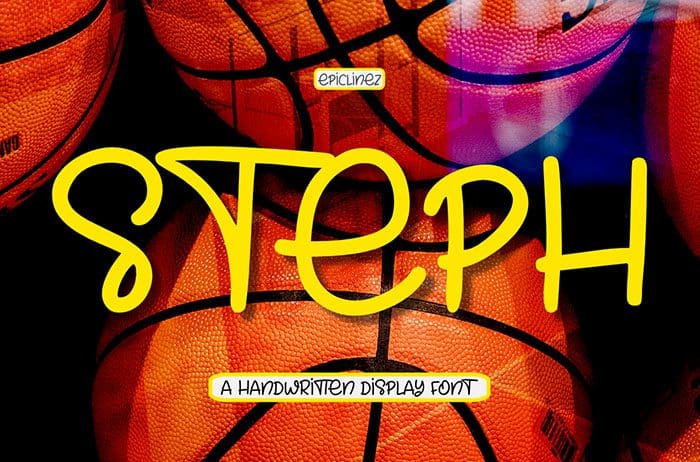
Steph handwritten display font. This all caps font was inspired from the two time MVP, Stephen Curry from the Golden State Warriors. Arguably the greatest shooter of all time. This smooth buttery font is perfect for your next design project! This font is available only for personal use. Created this font by Epiclinez. You can also search more free Handwritten Fonts. Thanks!
Designed By : Epiclinez